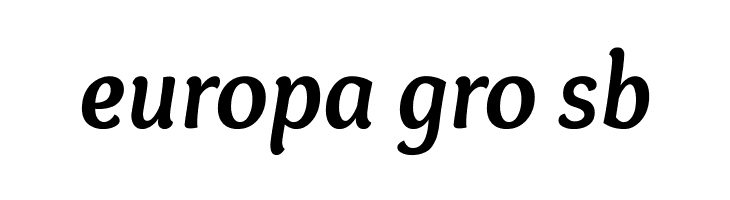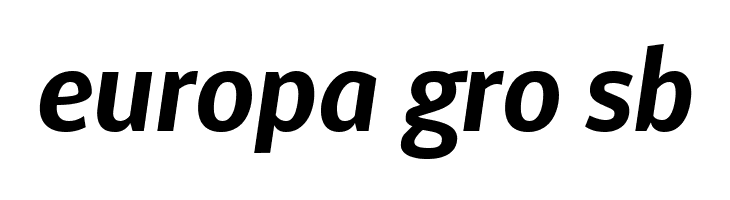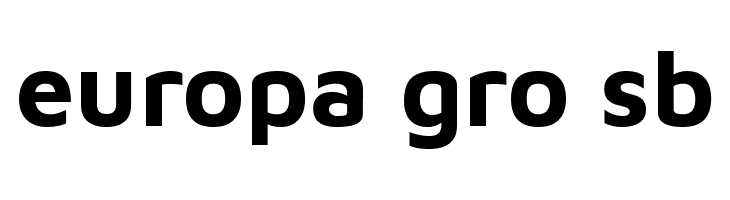
A bold, italic serif font with a classic and elegant style.
A bold, italicized font with smooth curves and a playful yet sophisticated style.
) A modern, bold italic font with medium contrast and slightly condensed characters.
) A bold, italicized font with a modern, sleek, and slightly condensed style.
A bold, modern sans-serif font with clean lines and strong visual impact.
A bold, geometric font with a modern Kufi-inspired design.
A bold slab serif font with strong geometric shapes and prominent serifs.
A bold, geometric font with decorative elements and modern elegance.
A modern, bold, and italicized font with a clean and dynamic style.
A bold, modern sans-serif font with clean lines and strong legibility.